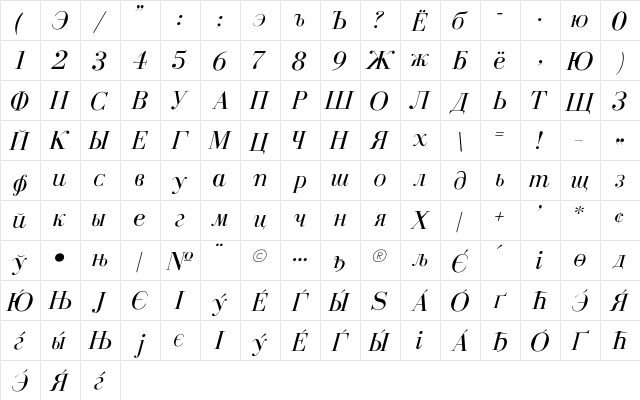
Cyrillic-Normal-Italic Regular
Design Context for Cyrillic-Normal-Italic Typeface
Cyrillic-Normal-Italic takes a measured approach to typography — its balanced proportions and neutral character make it a reliable workhorse for both digital and print work. The slanted form adds forward momentum and visual energy.
Pro Tip: Try Cyrillic-Normal-Italic for annotation and caption copy alongside an upright companion — the contrast in angle creates a dynamic but ordered typographic system.